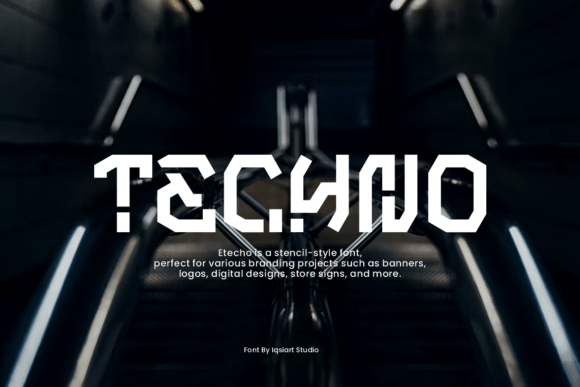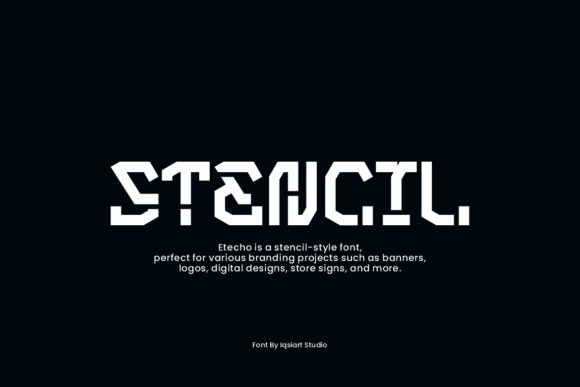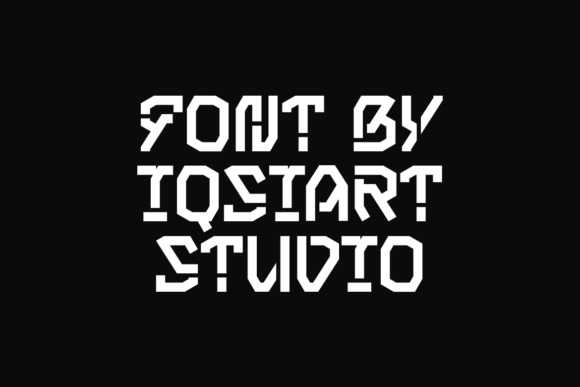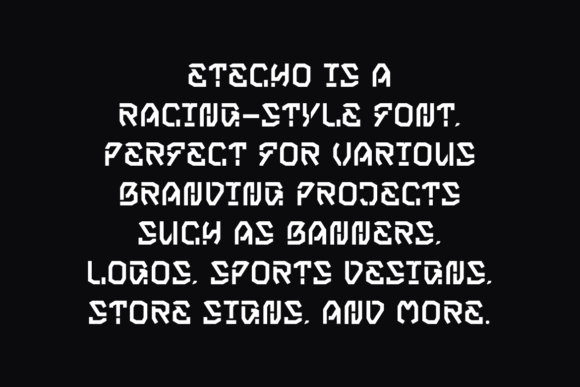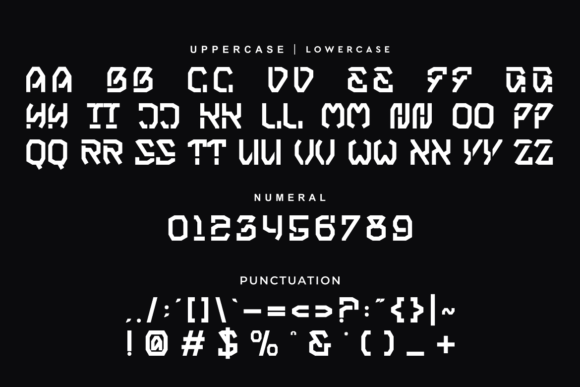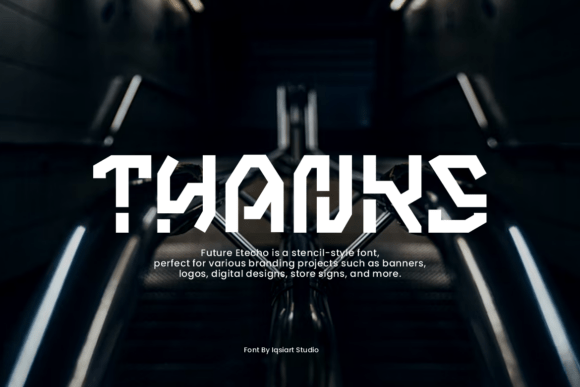
Introduction to Etecho Font
Have you ever found yourself in the middle of a creative project, staring at a blank canvas, searching for the perfect font to bring your vision to life? The struggle is real, especially when you’re working on a project that requires a unique touch. That’s when I discovered the Etecho Font, a game-changing design resource that has been a total game-changer for my creative endeavors.
The Etecho Font is more than just a stylish display font – it’s a versatile tool that can elevate any design project. With its sleek and modern design, this font is perfect for adding a touch of sophistication to your work. Plus, it’s available for free download, making it an invaluable resource for designers on a budget.
Whether you’re working on a logo, a social media campaign, or a marketing brochure, the Etecho Font is sure to make a statement. Its high-quality design and transparent background make it easy to use and customize, allowing you to focus on what matters most – bringing your creative vision to life.
Key Features of Etecho Font
- High-quality design resource with a unique, modern aesthetic, ideal for creative projects.
- Features a transparent background, making it easy to customize and combine with other design elements.
- Designed with a high resolution of 300 DPI, ensuring crisp and clear text even at larger font sizes.
- Perfect for use in digital design, including logos, branding materials, and web graphics.
Honest Review: Etecho Font
I recently came across the Etecho Font, and I must say, it’s been a game-changer for my creative project. This font is perfect for designers looking for a high-quality, elegant design resource. The Etecho Font is available for free download, making it an excellent choice for those on a budget.
What works well: ✨ The Etecho Font’s transparent background makes it easy to use in any design, and its versatility is unmatched. The font is highly customizable, allowing you to adjust its size, color, and style to fit your design needs. The Etecho Font is also available in multiple formats, including OTF, TTF, and WOFF, making it compatible with most design software.
Here are some of the key features I love about the Etecho Font:
- High-quality design resource perfect for creative projects
- Transparent background for easy design integration
Limitations: ⚠️ While the Etecho Font is an excellent design resource, I found it to be a bit limited in terms of its character set. It’s perfect for general text, but may not be suitable for complex or technical writing.
Overall, I’m impressed with the Etecho Font. Its high-quality design and versatility make it an excellent choice for designers. While it may have some limitations, I highly recommend it for any creative project.
Etecho Font is a high-quality design resource ideal for creative projects. This versatile font can be used for various purposes, from graphic design to digital art.
Common Use Cases for Etecho Font
Etecho Font is ideal for:
- Graphic design projects
- Digital art
- Print materials